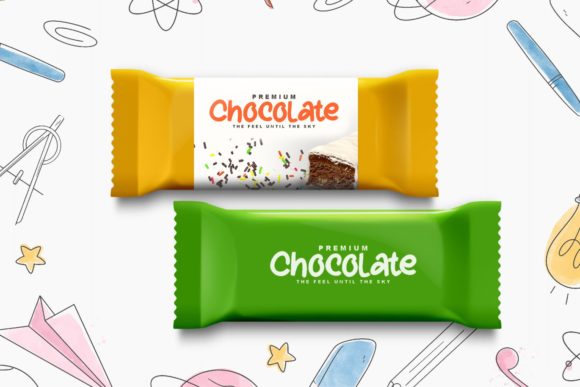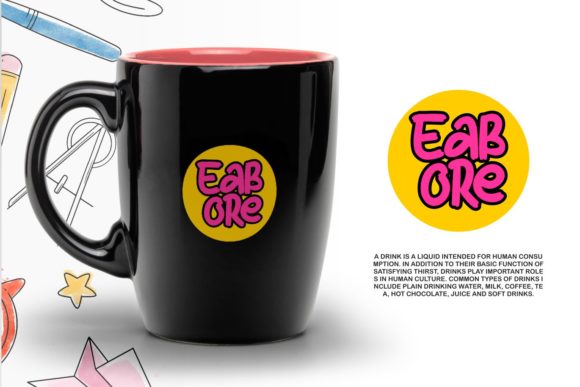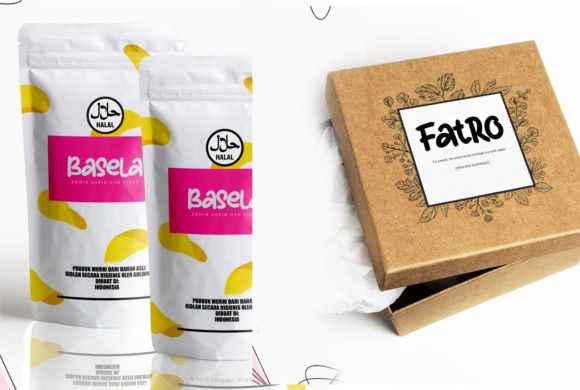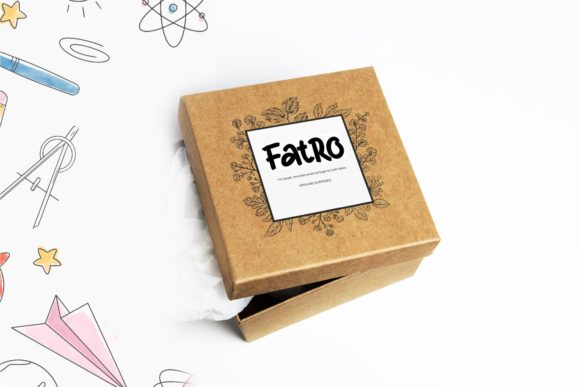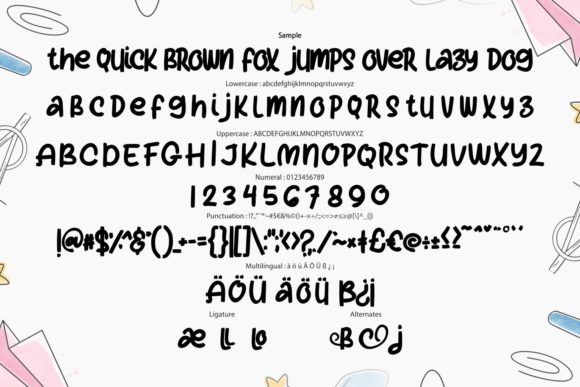
Introducing Falose Font: Elevate Your Creativity with Elegance
In the world of typography, a font can make all the difference in transforming a simple design into a masterpiece. For those seeking a touch of modern elegance in their creative projects, look no further than the Falose Font. This modern handwritten font is carefully crafted to bring a level of sophistication and artistry to any design, making it perfect for a wide range of applications, from Instagram posts to DIY projects that require a personal touch.
The Essence of Falose Font
Falose is not just another font; it’s a tool for creativity, designed to turn any idea into a true piece of art. Its unique, modern handwritten style strikes the perfect balance between casual and elegant, making it incredibly versatile. Whether you’re a designer looking for the perfect font to elevate your Instagram feed, a crafter seeking a stylish script for your DIY projects, or a business owner aiming to enhance your brand’s visual identity, Falose Font is the ideal choice.
Why Choose Falose Font?
- Elegance and Versatility: Falose boasts a modern yet timeless elegance that fits a variety of design needs. Its versatility makes it suitable for everything from digital media to print materials.
- Handwritten with Love: Each letter in Falose is carefully crafted to ensure a personal and unique feel, giving your projects a distinctive touch that stands out.
- Easy to Read and Aesthetic: Despite its elegant and artistic design, Falose remains highly legible, making it perfect for both headings and body text.
- Wide Range of Applications: From social media graphics and blogs to craft projects and professional branding, Falose can enhance any creative endeavor.
Applications of Falose Font
The possibilities are endless with Falose Font. Here are a few ideas to get you started:
- Instagram and Social Media: Elevate your feed with stylish posts, stories, and captions that reflect your unique aesthetic.
- DIY Projects: Add a personal touch to your handmade crafts, such as journals, cards, and decorations, with beautiful calligraphy.
- Branding and Marketing: Use Falose to create a distinctive visual identity for your business, setting you apart from the competition.
- Graphic Design: Incorporate Falose into your designs for clients across various industries, from fashion to food, to add a modern and sophisticated touch.
Tips for Using Falose Font Effectively
To maximize the impact of Falose Font in your projects, consider the following tips:
- Mix and Match: Combine Falose with other fonts for contrast and visual interest. Its elegance pairs well with sans serifs for a modern look or with serifs for a more traditional feel.
- Play with Sizes: Use varying font sizes to create hierarchy and emphasis in your designs.
- Color Matters: While Falose looks stunning in black or dark colors, don’t be afraid to experiment with colored text or gradients to match your brand or project’s theme.
Falose Font is more than just a typeface; it’s a creative partner that can elevate your designs and projects to new heights of elegance and sophistication. Its modern handwritten style, combined with its versatility and readability, makes it an invaluable tool for designers, crafters, and anyone looking to add a personal touch to their creative endeavors. Discover the possibilities with Falose Font and transform your ideas into art.